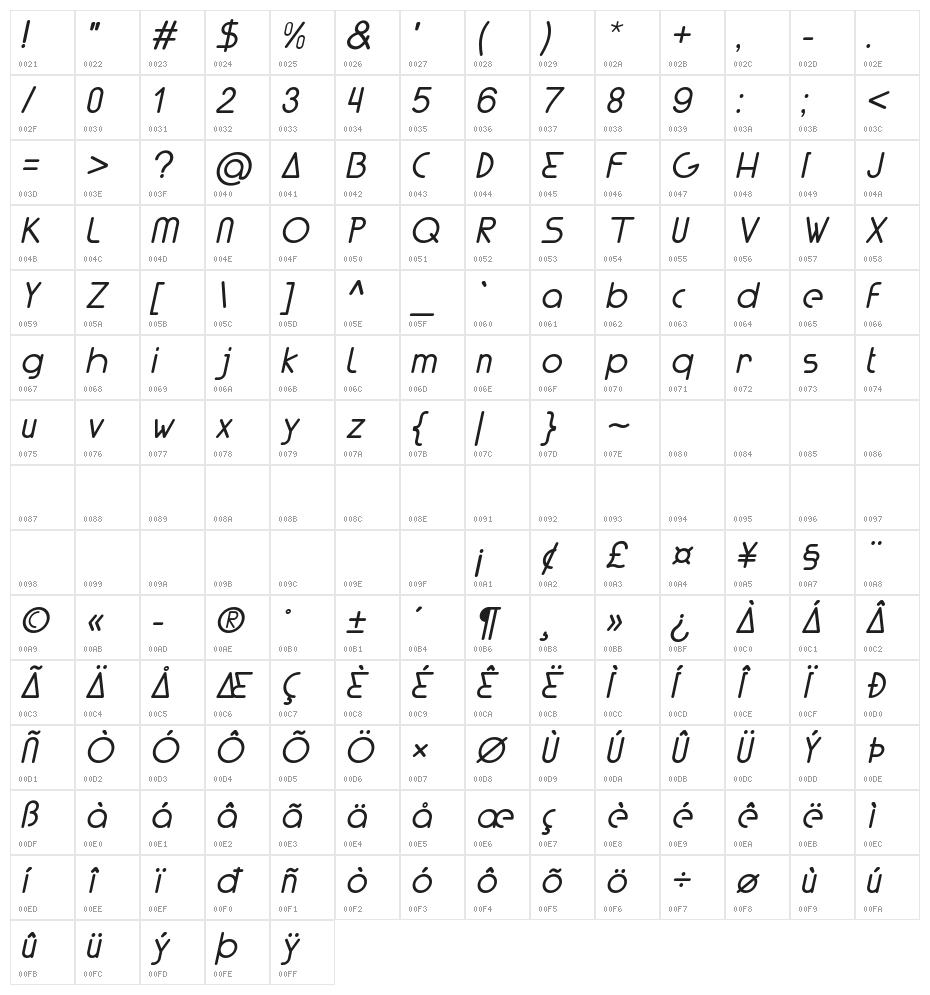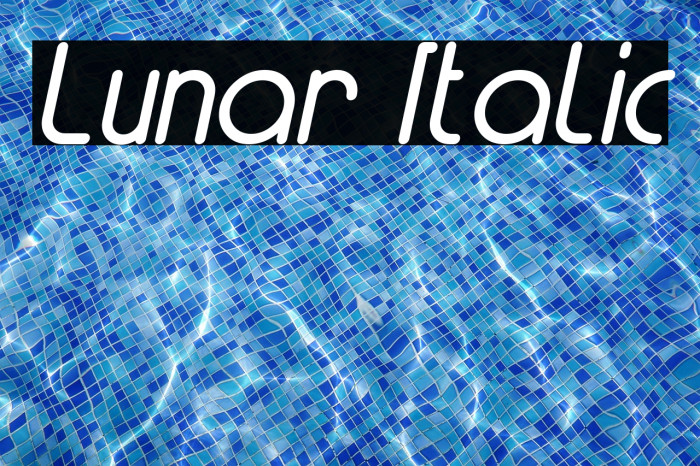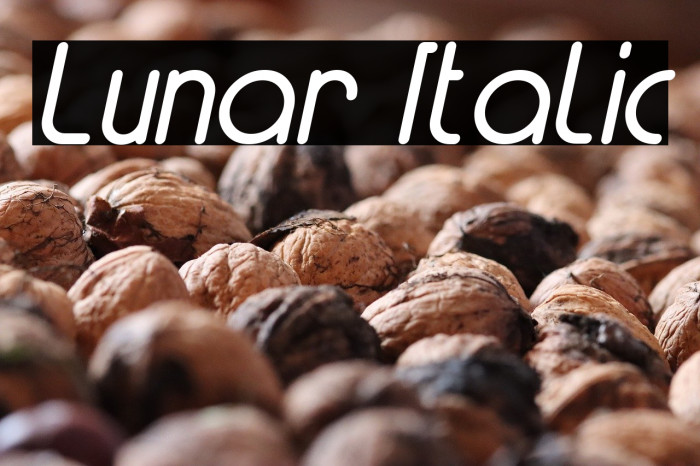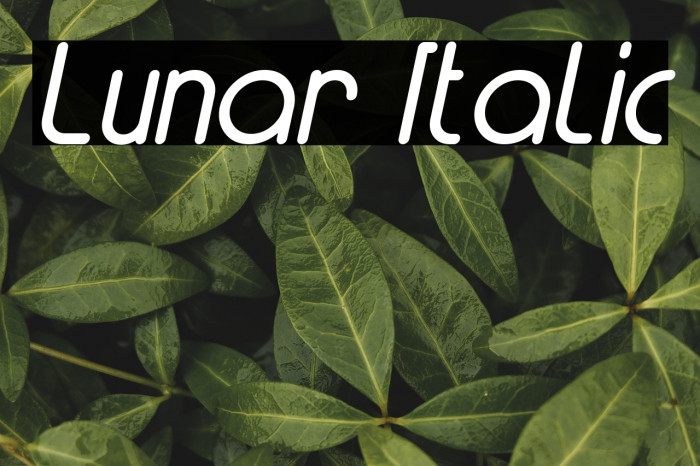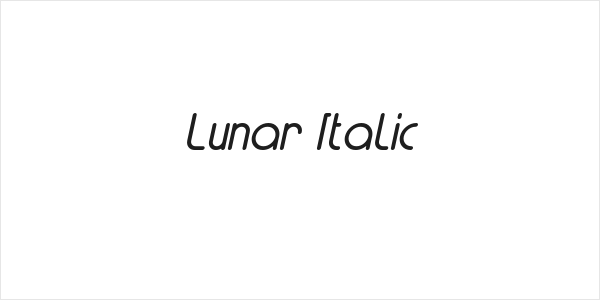
Lunar Italic Font
Lunar Italic Description
This font features a sleek, modern design with a slight italic slant, giving it a dynamic and forward-moving appearance. The characters are rounded and smooth, providing a sense of fluidity and elegance. The uppercase letters are bold and prominent, while the lowercase letters maintain a consistent flow, enhancing readability. The numerals are clear and distinct, matching the overall style of the alphabet. Special characters are well-integrated, maintaining the font's cohesive look. This font is versatile, suitable for a variety of applications where a contemporary and stylish aesthetic is desired.
| Use Case | Headlines, Logos, Digital Media |
| Proposed Projects | Ideal for branding, advertising, digital media, and modern editorial design. |